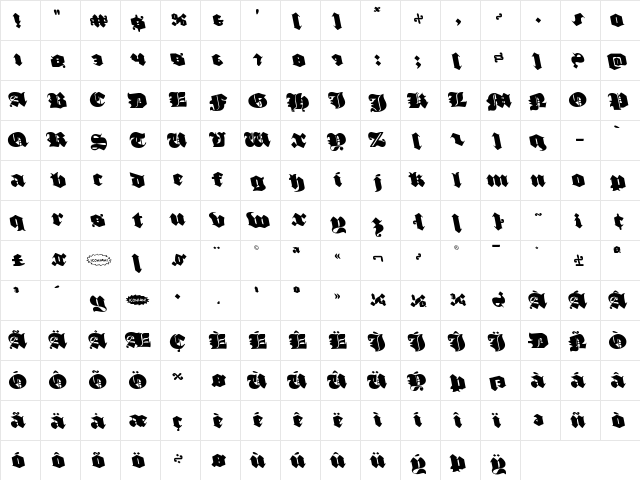
Lux Contra Tenebras Leftalic Italic
Italic ·  Daniel Zadorozny ·
DesignerDaniel Zadorozny
Design Context for Lux Contra Tenebras Leftalic Typeface
Lux Contra Tenebras Leftalic is a composed and adaptable typeface that performs quietly and consistently across a wide range of design contexts. The dynamic lean of this cut emphasises speed and emphasis in any layout.